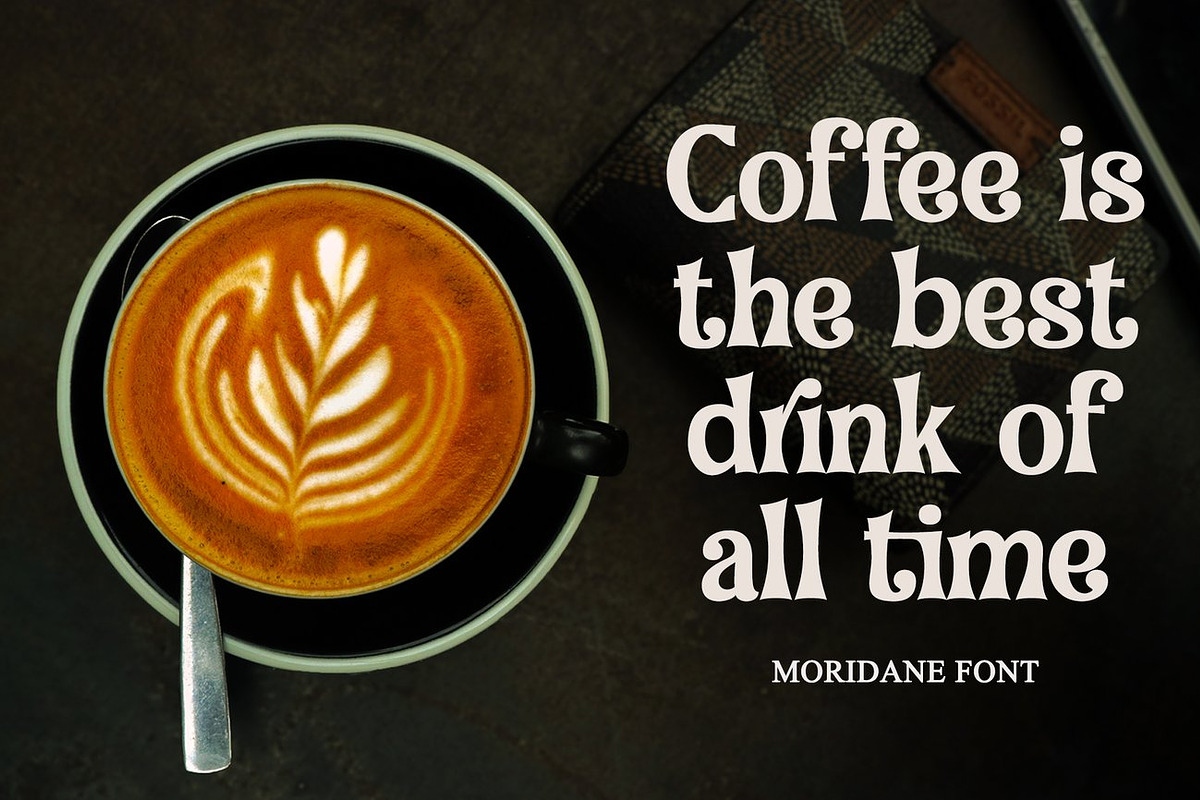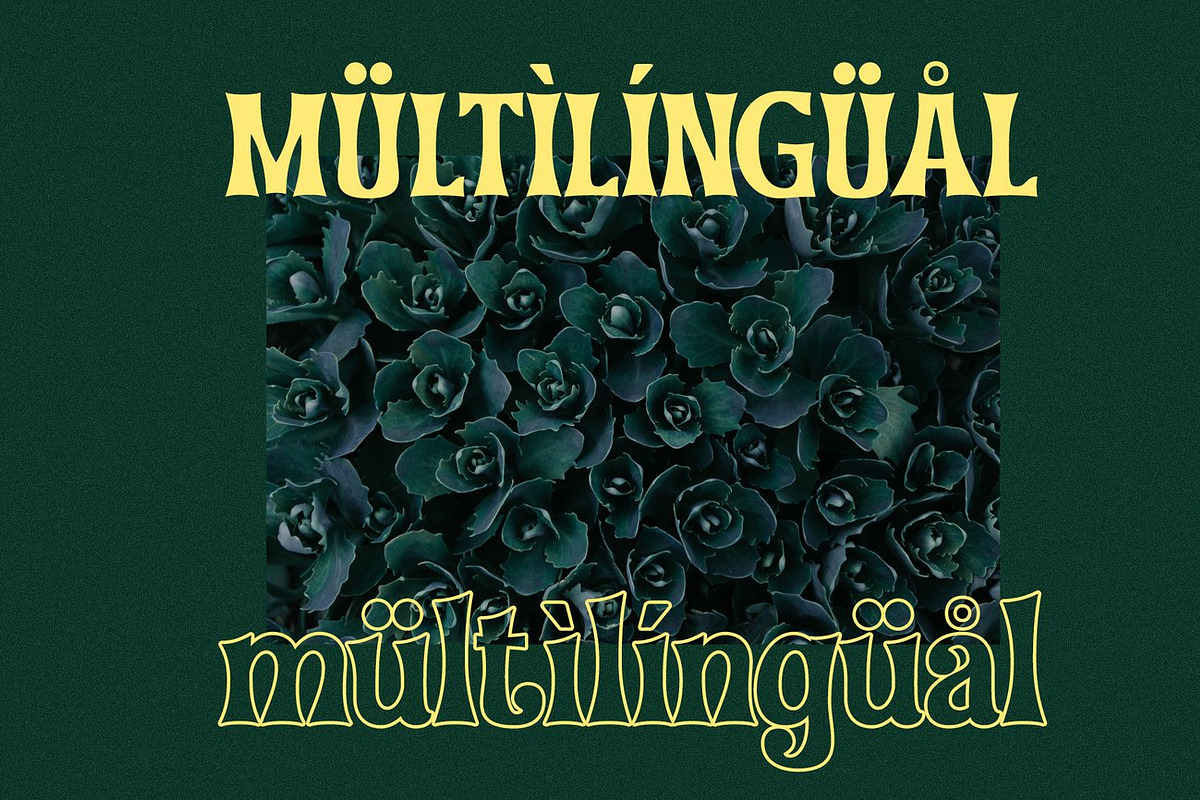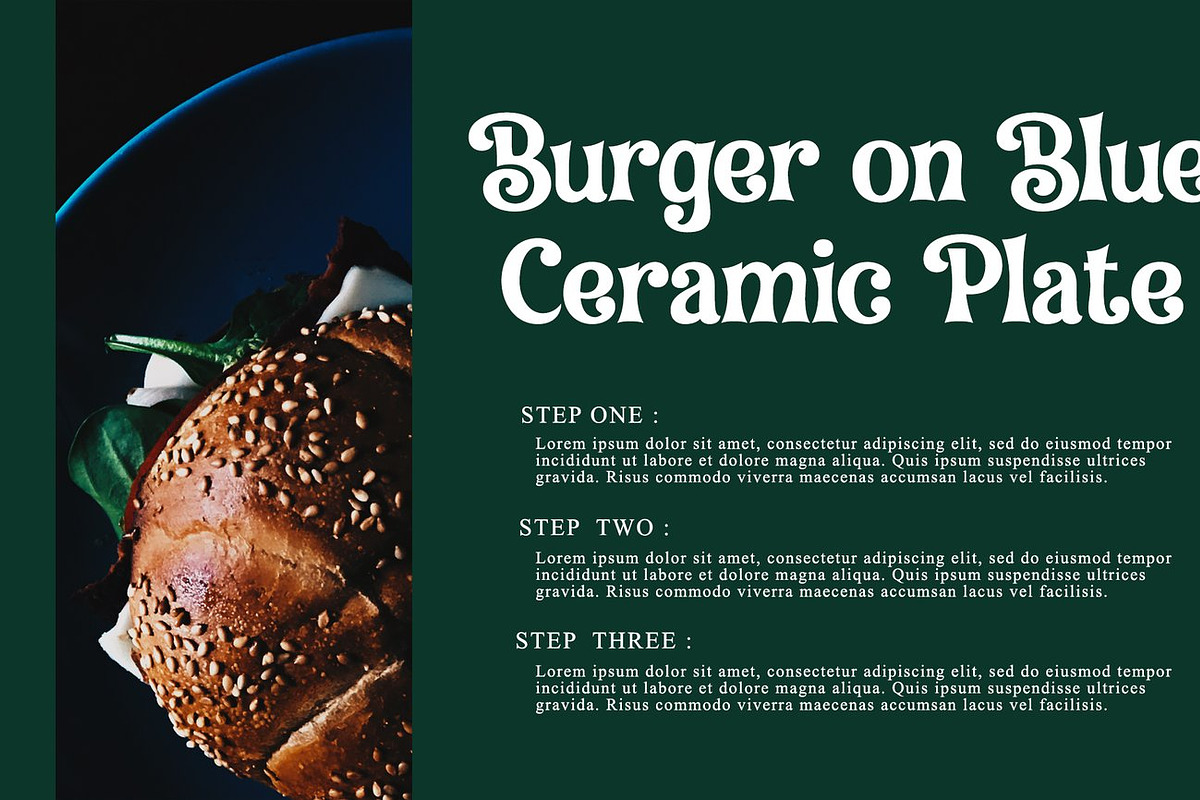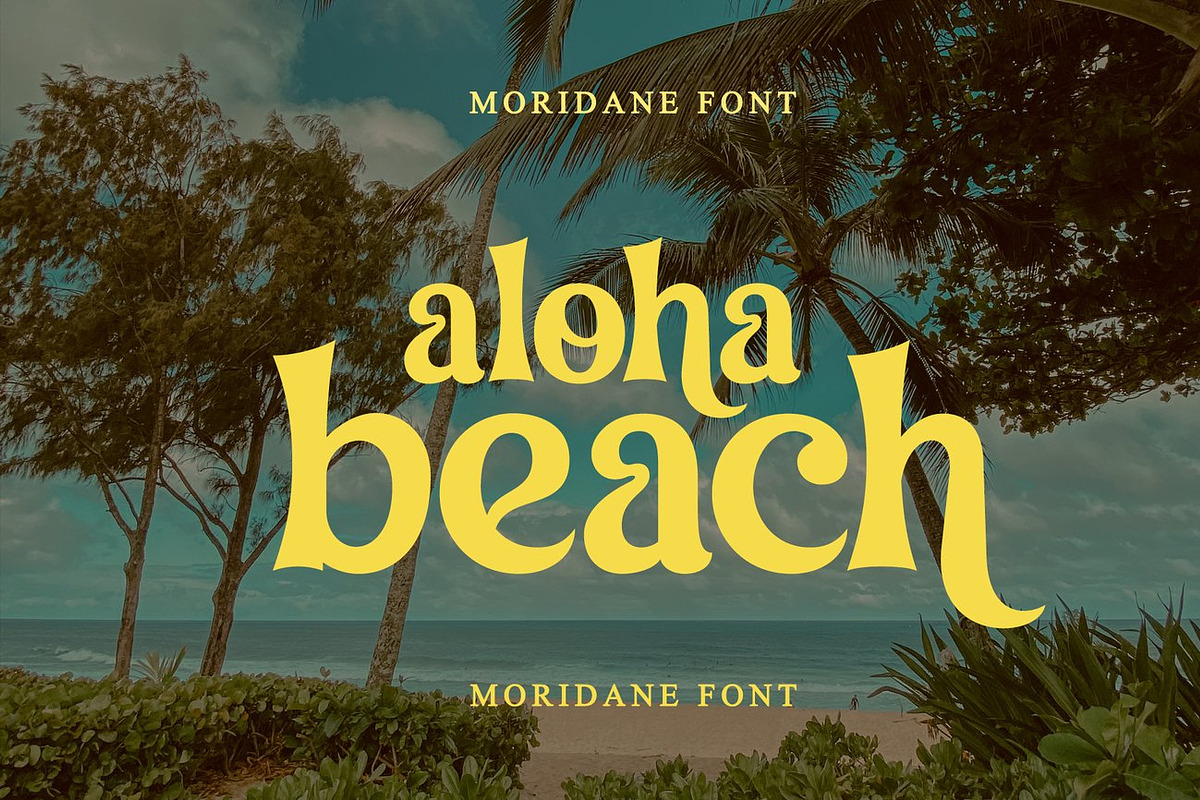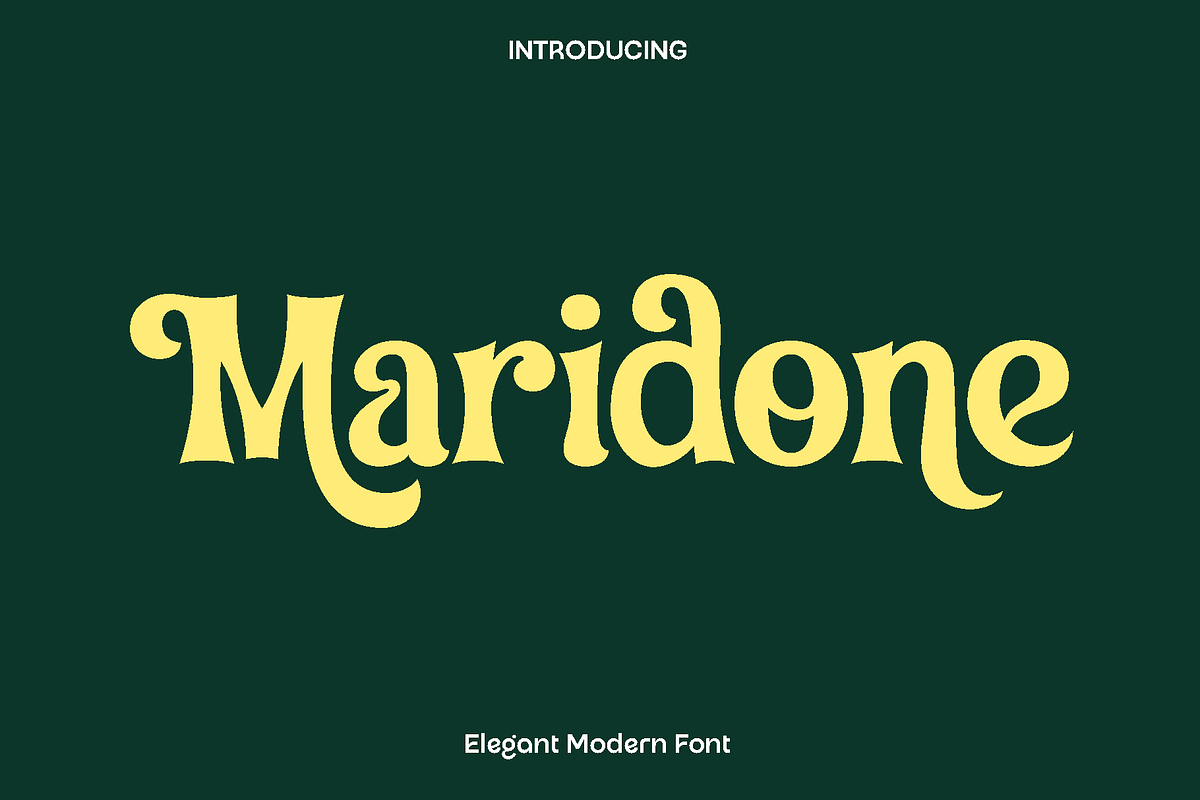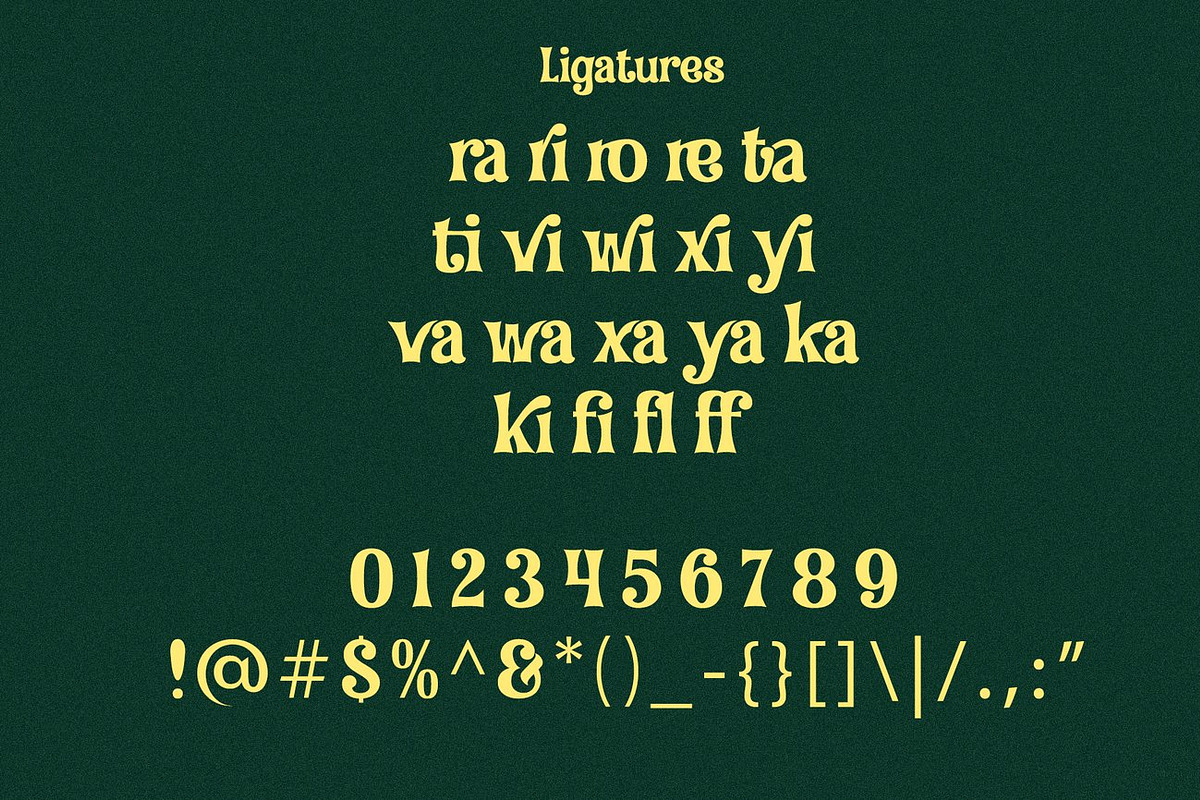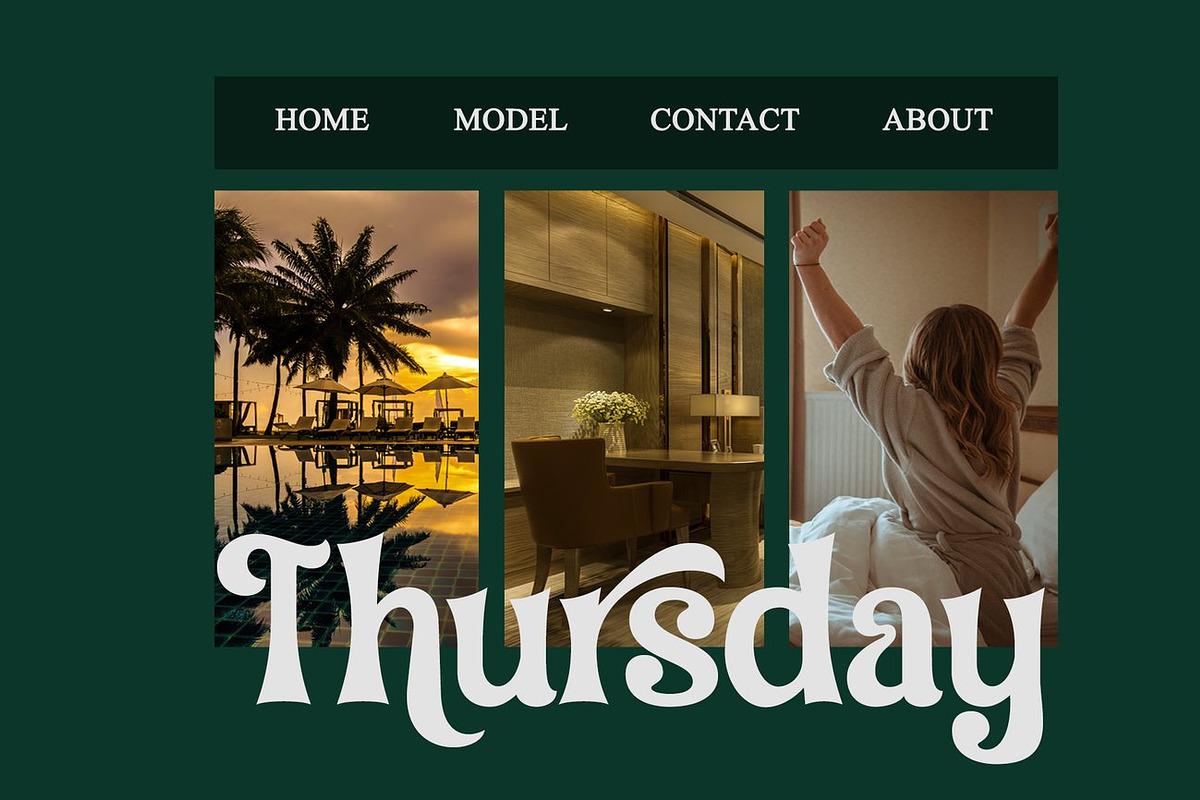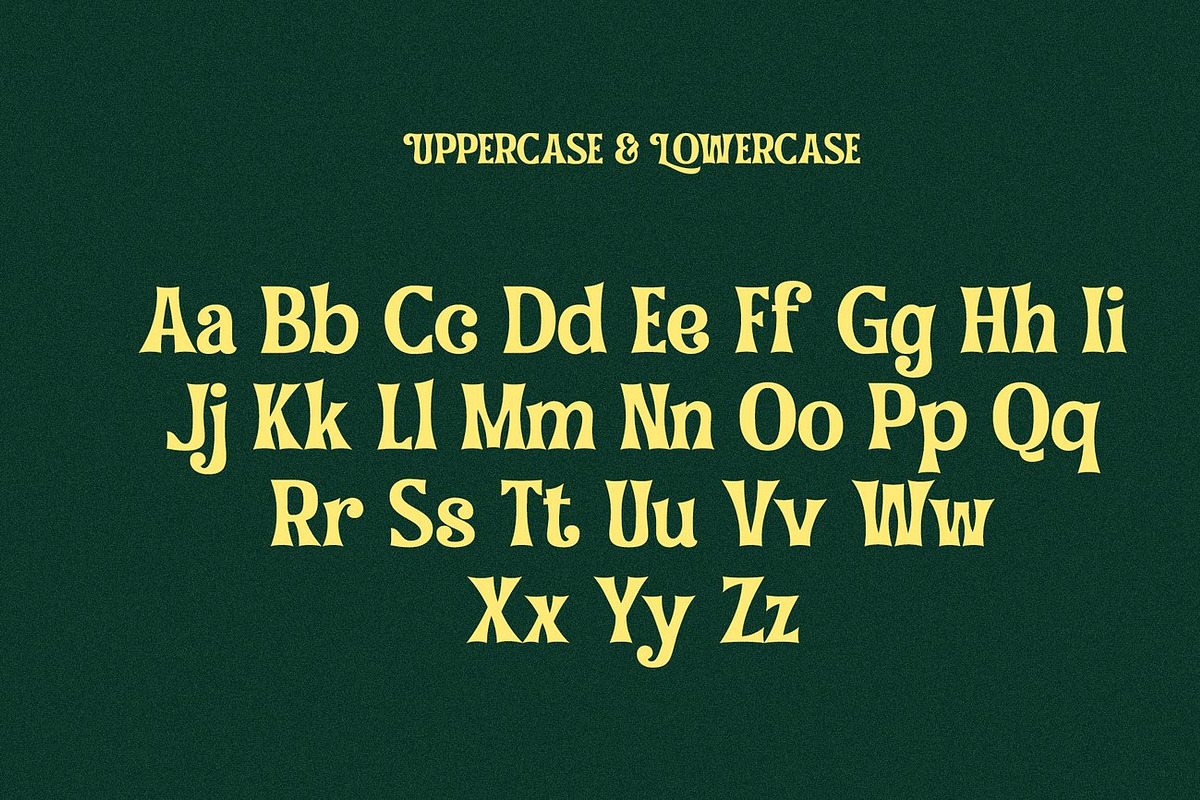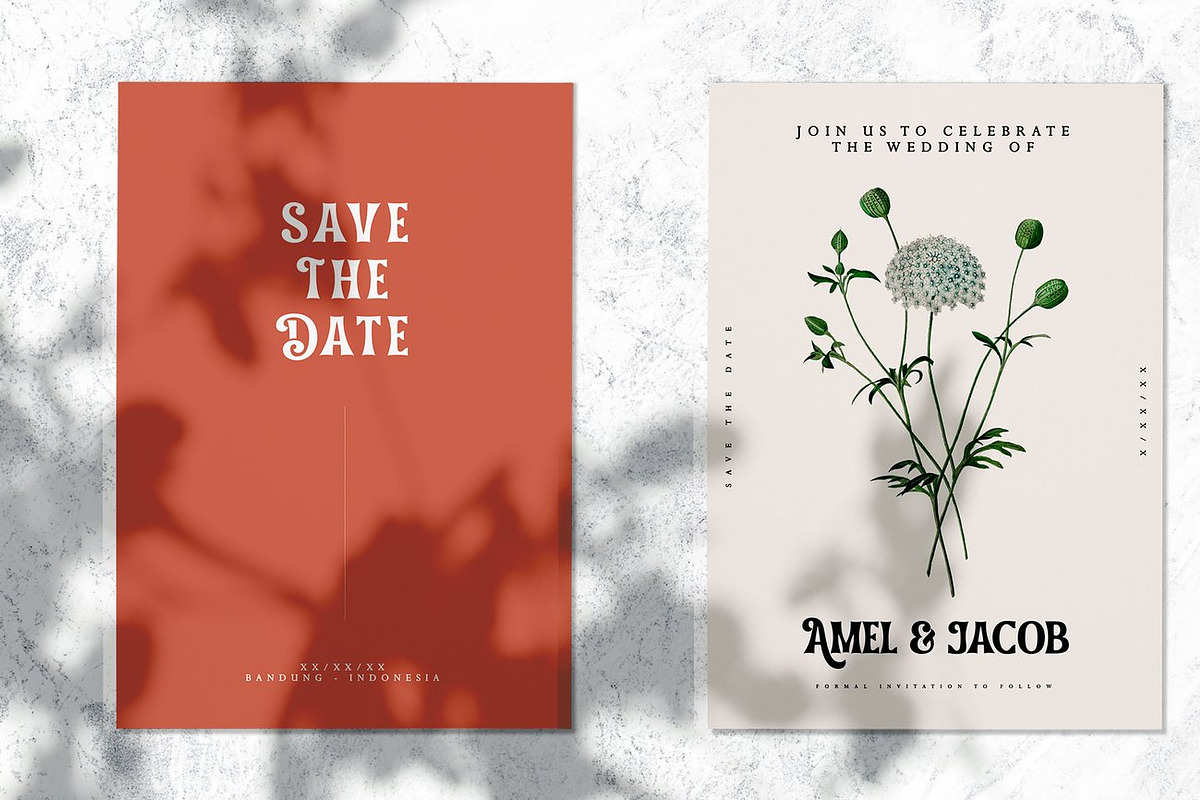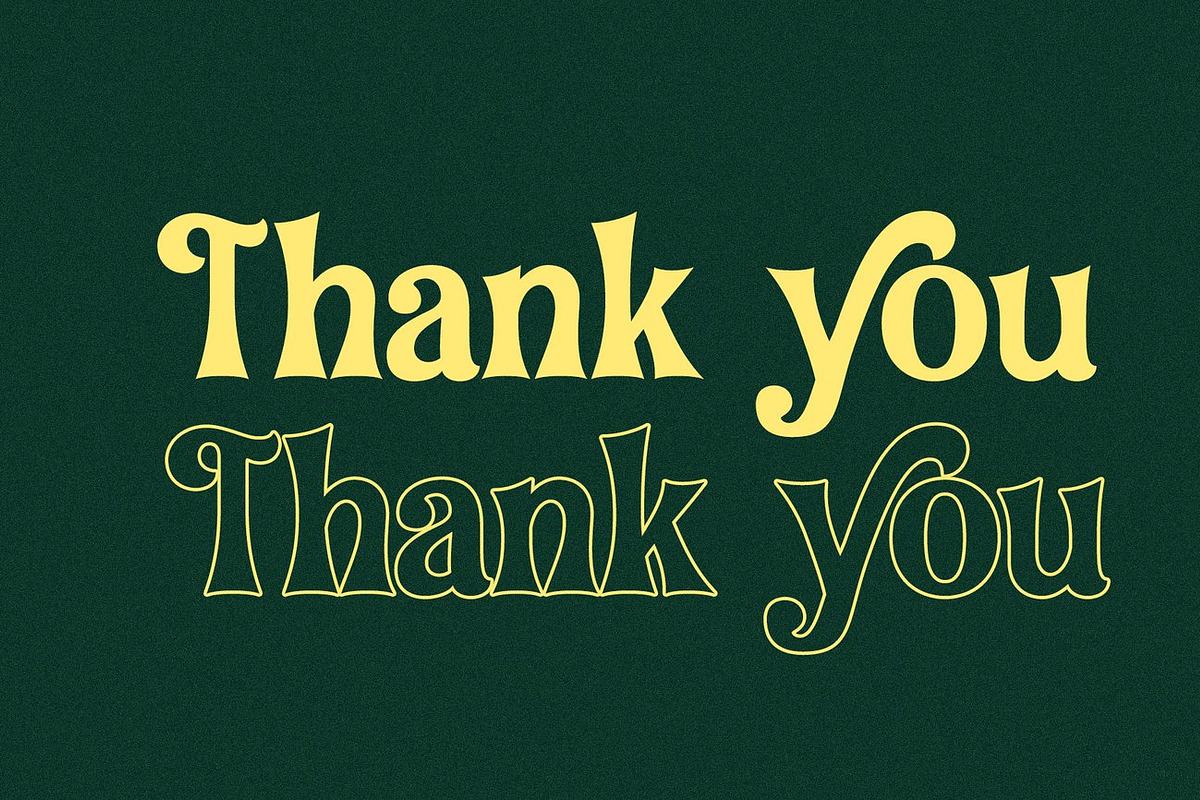
Maridone - Modern Serif
Maridone is a stylish and expressive font created to bring clarity, creativity, and personality into your designs. Crafted with a modern spirit and clean visual rhythm, Maridone blends simplicity with character, making it a reliable choice for designers who want their typography to feel confident and engaging. Its balanced shapes and smooth flow give every word a natural elegance that feels professional yet approachable.
This font shines across a wide range of creative projects. From books and magazines to logos, branding, and photography layouts, Maridone adapts beautifully to both bold statements and refined compositions. It works effortlessly for blog headers, inspirational quotes, posters, and advertisements, giving your content a strong visual identity that feels consistent and memorable.
Maridone feels modern, versatile, and inviting. It is designed for creatives who value flexibility without sacrificing style. Whether used in print or digital media, Maridone delivers a polished look that enhances readability while adding a distinctive touch to every design.
Maridone Font Features:
• Clean and stylish display characters
• Perfect for branding, editorial, and advertising use
• Unique punctuation, numbers, and symbols
• Uppercase and lowercase
• OpenType features
• Multilingual support for a wide range of languages